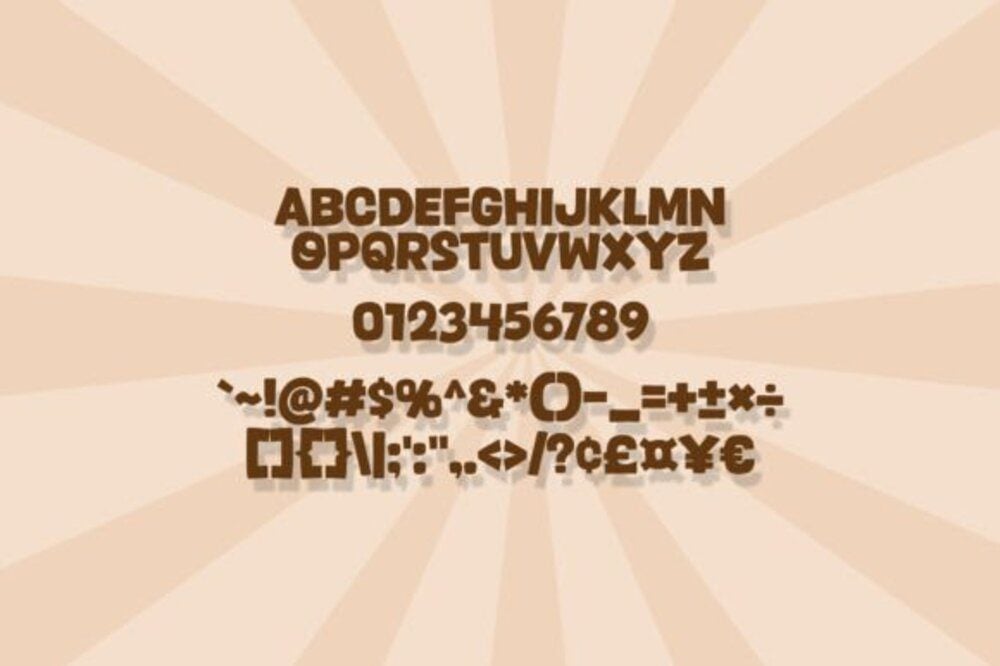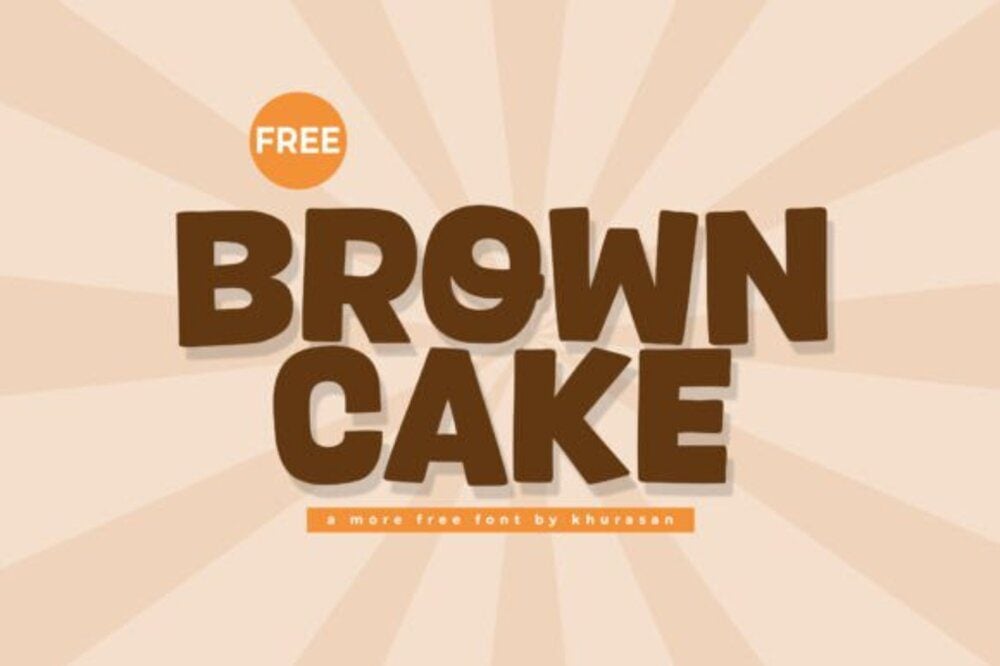
Brown Cake Font
Brown Cake is a sweet and inviting typeface that radiates warmth and charm. Its soft curves and playful strokes evoke the cozy delight of freshly baked treats. Perfect for bakery branding, packaging, and whimsical designs, Brown Cake adds a touch of sweetness to any project. Its approachable and cheerful style ensures your creations feel irresistibly delightful.